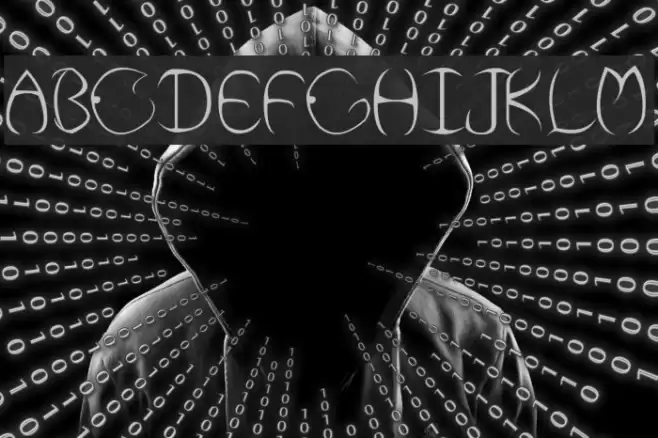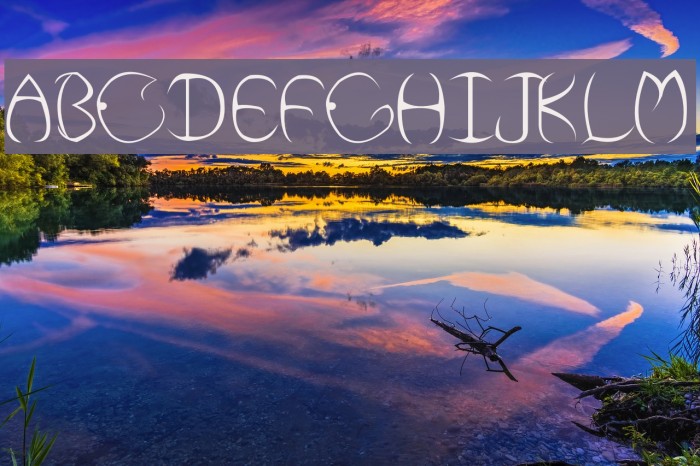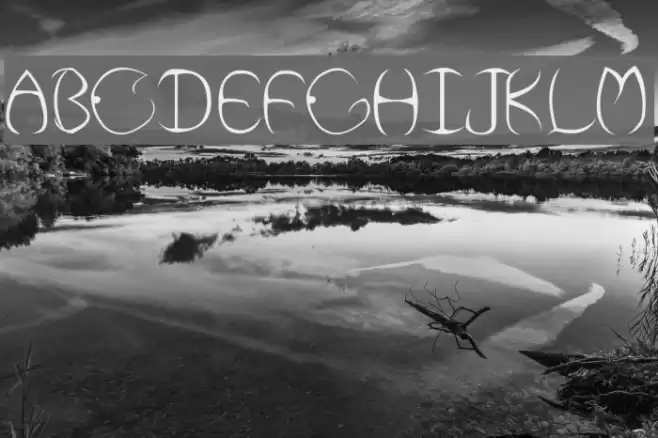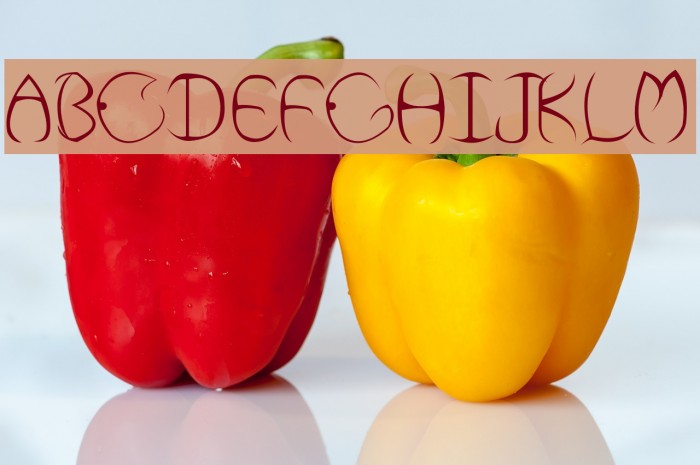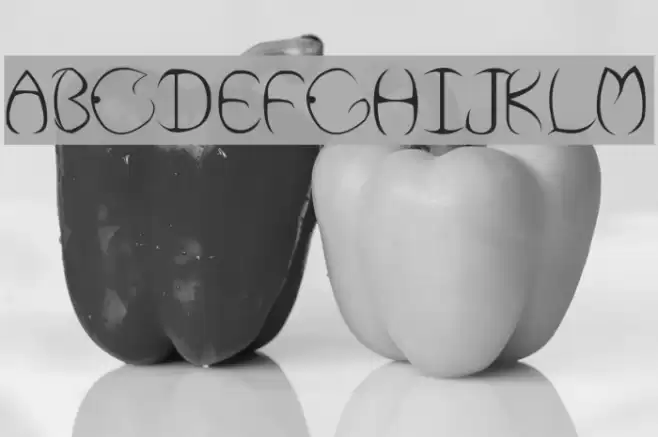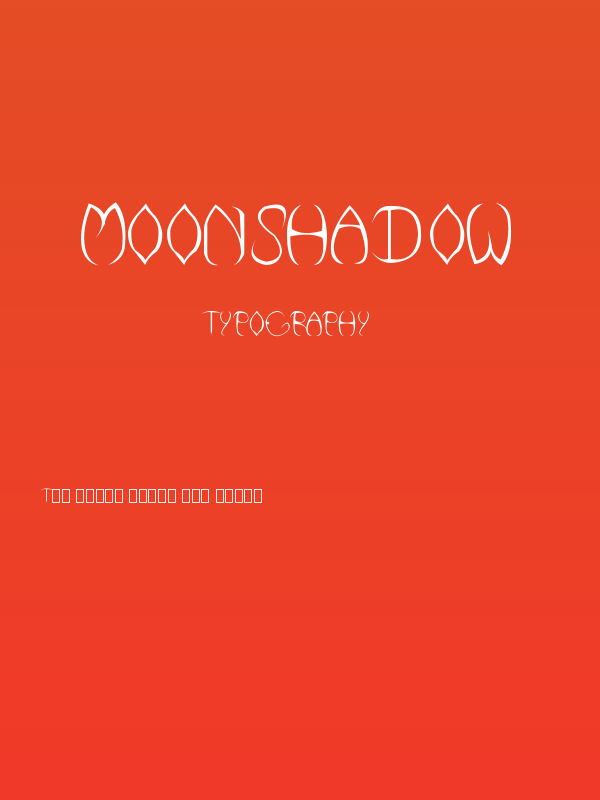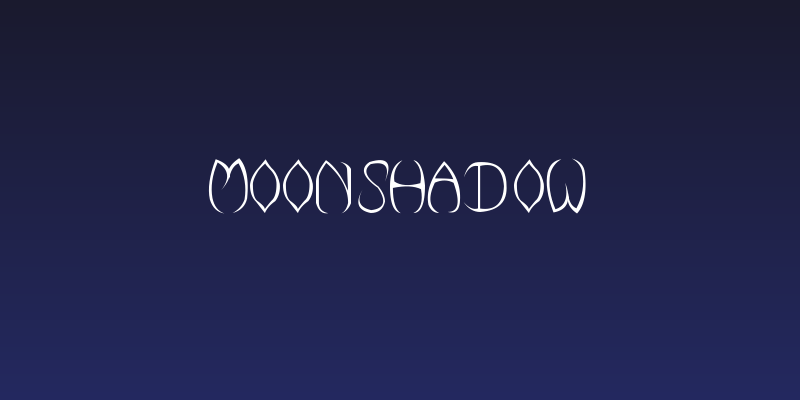
Moonshadow Font
Moonshadow Description
This font features a unique and artistic design, characterized by its flowing, crescent-like curves and sharp, pointed edges. Each letter is crafted with a sense of movement and elegance, creating a mystical and enchanting appearance. The uppercase letters exhibit a harmonious blend of thick and thin strokes, adding a dynamic contrast that enhances readability while maintaining an artistic flair. The overall style is reminiscent of calligraphic influences, with a modern twist that makes it suitable for creative and decorative purposes. The absence of lowercase letters and numbers suggests a focus on display usage, where the font can shine in titles, logos, or artistic compositions. Its distinctive style makes it ideal for projects that require a touch of fantasy or elegance.
| Proposed Projects | Perfect for fantasy-themed designs, book covers, logos, and artistic posters. |